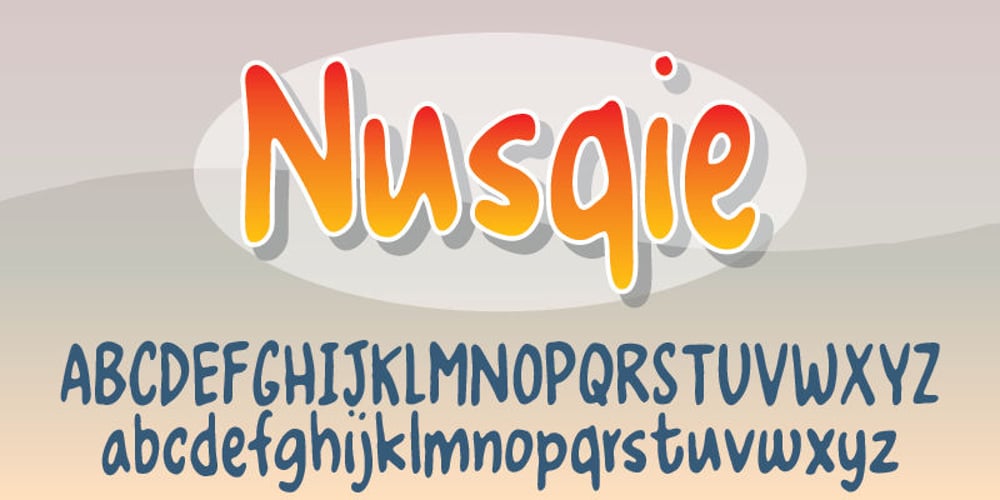
Nusqie Font Family was designed by Jakob Fischer and published by PizzaDude.dk. Nusqie contains 1 styles and family package options. Slightly blurred, and handwritten – looks good with massive text. With ligatures for both upper- and lowercase double letters, and alternate letters, also for upper- and lowercase, it makes your text look soooo smooth! Oh, I almost forgot: Nusqie also comes with ligatures for double numbers! You will need to use OpenType supporting applications to use the autoligatures.